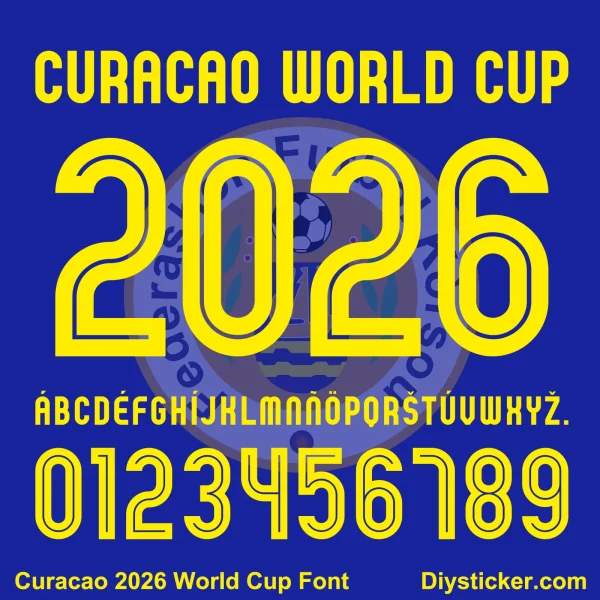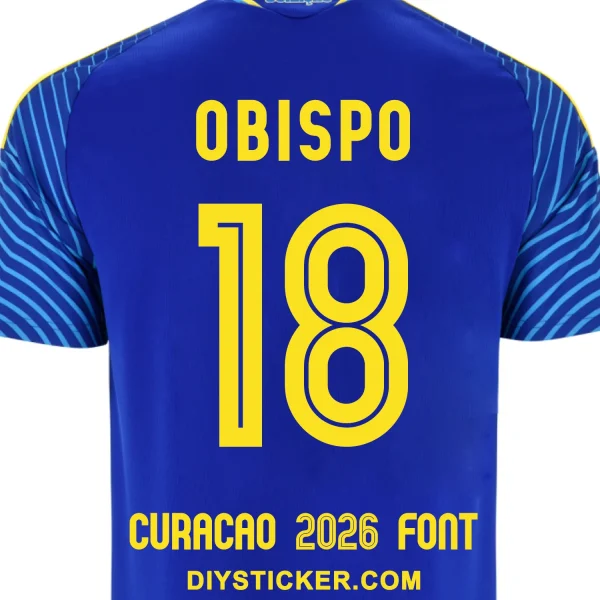
Curacao 2026 World Cup Font & Numbers Vector Kit: The Ultimate CONCACAF Customization Kit
Upgrade your custom print production with the high-performance Curacao 2026 World Cup font and complete numbers set. Designed to perfectly replicate the striking national team look worn during international qualifiers and championship matches, this digital toolkit offers unrivaled geometric precision. Whether you are creating a custom name-set for a die-hard fan or compiling massive promotional sports signage, our vector files ensure factory-fresh alignment. Discover more iconic international tournament designs by exploring our curated club fonts repository.
Aesthetic Design Breakdown & Typography Engineering
The Curacao 2026 World Cup font features a sophisticated, modern athletic design crafted to stand out on the pitch. Distinctive visual selling points include:
Elegant Inline Dual-Stripe Structure: The numbers feature a continuous, clean inner line split that loops seamlessly through each digit, providing a textured, high-contrast layer that prevents flat designs from washing out under stadium lights.
Softly Rounded Neo-Gothic Curves: The outer profiles combine a modern squarish tall format with smooth, rounded exterior corners, blending structural power with high-speed aerodynamic aesthetics.
High-Contrast Yellow Palette: Meticulously engineered for deep blue home kits, delivering exceptional legibility for referees, broadcasters, and fans alike.